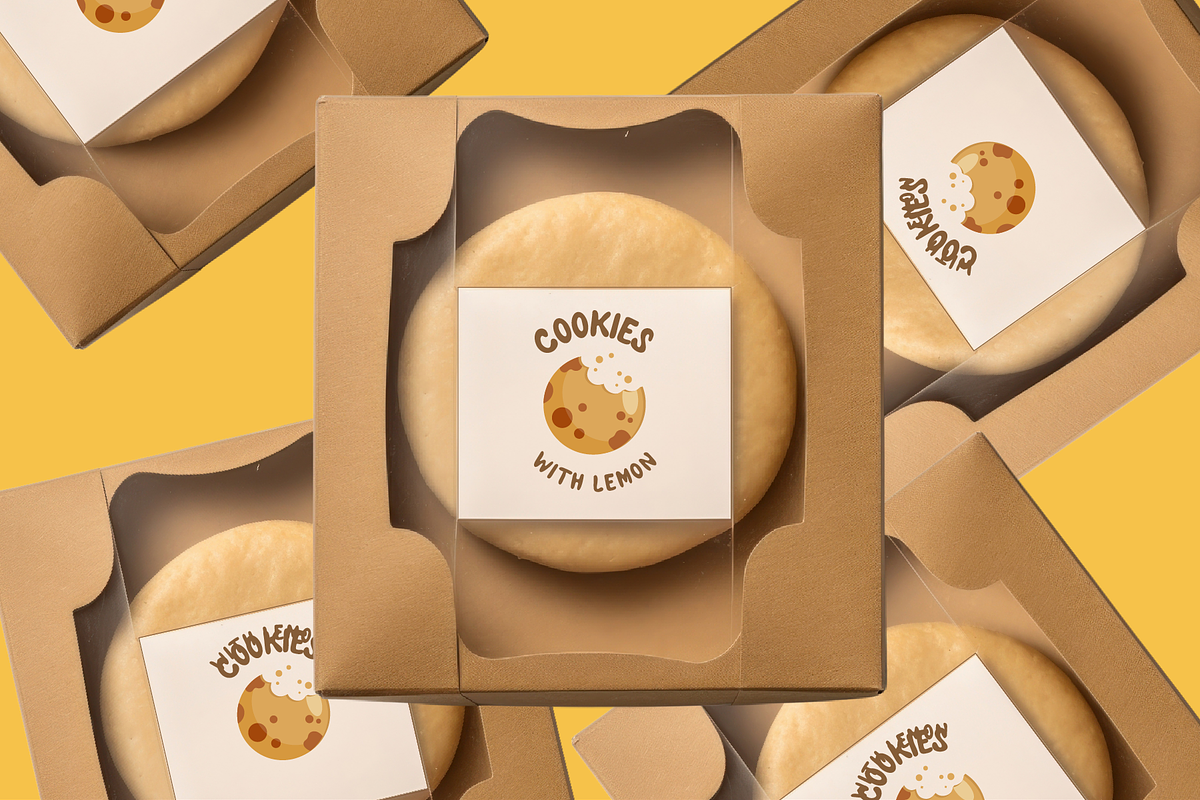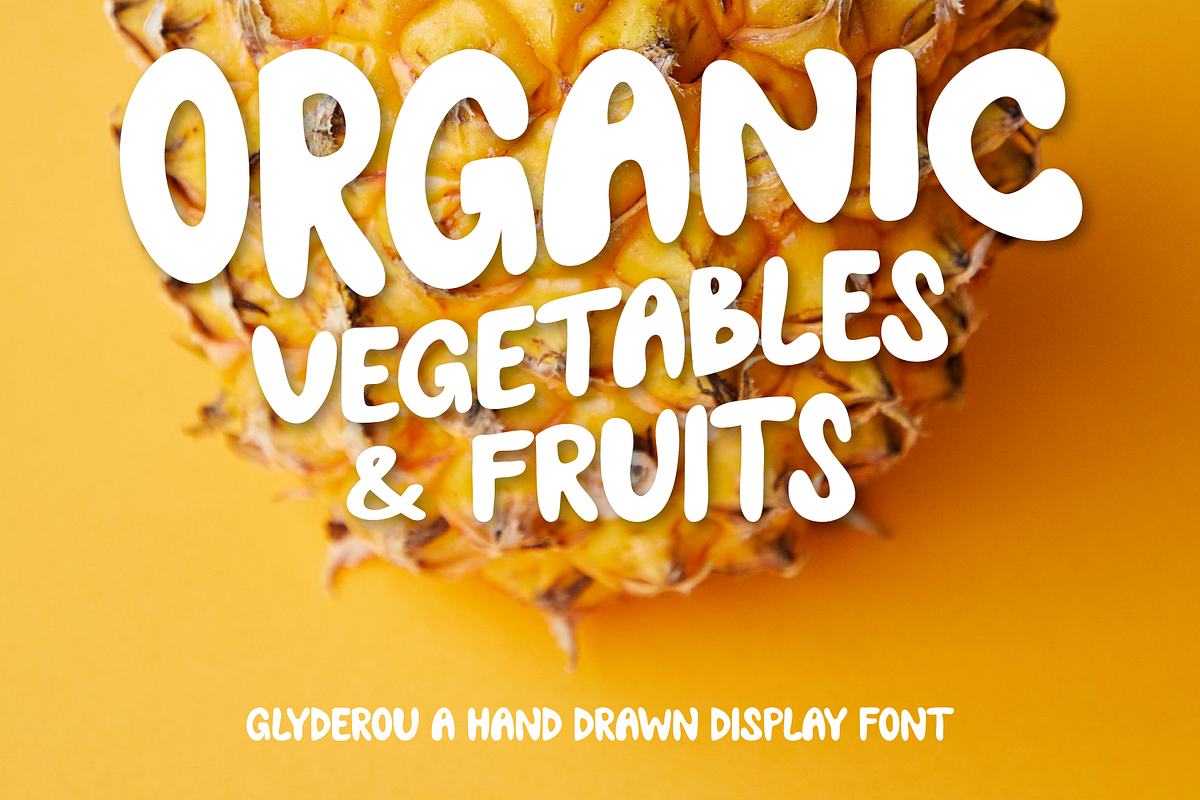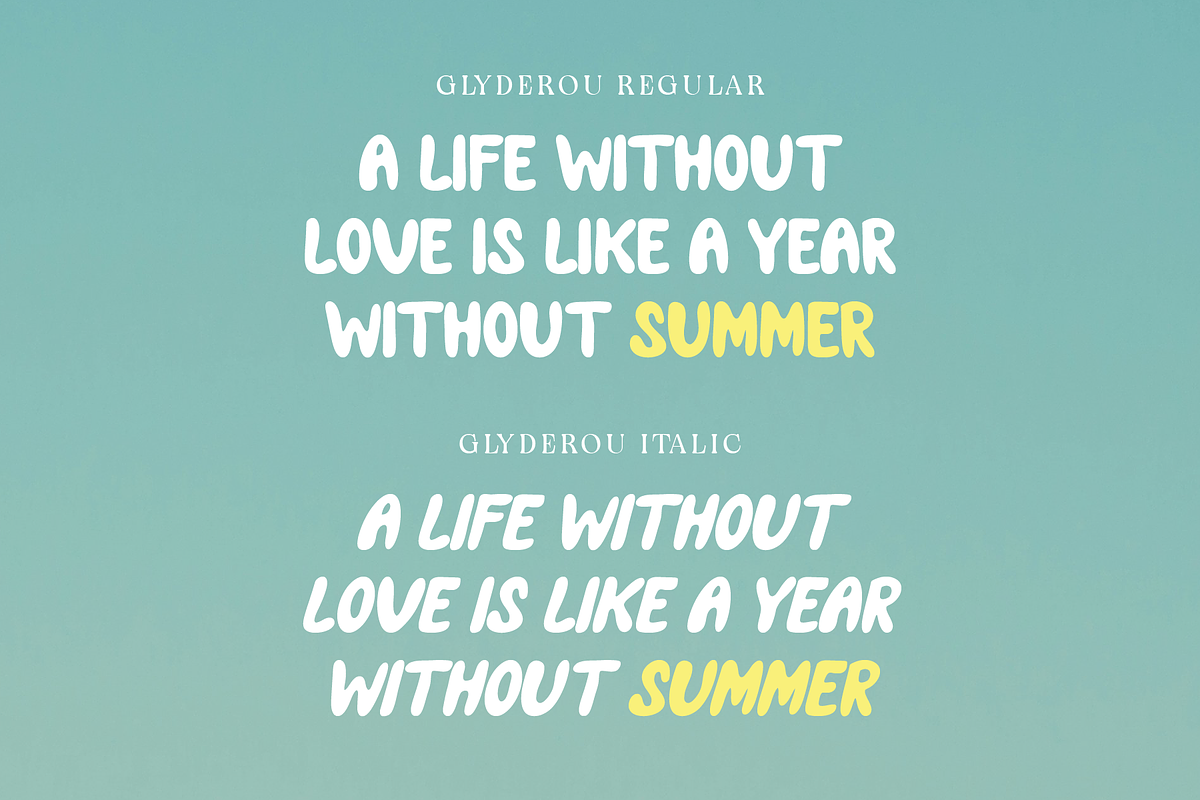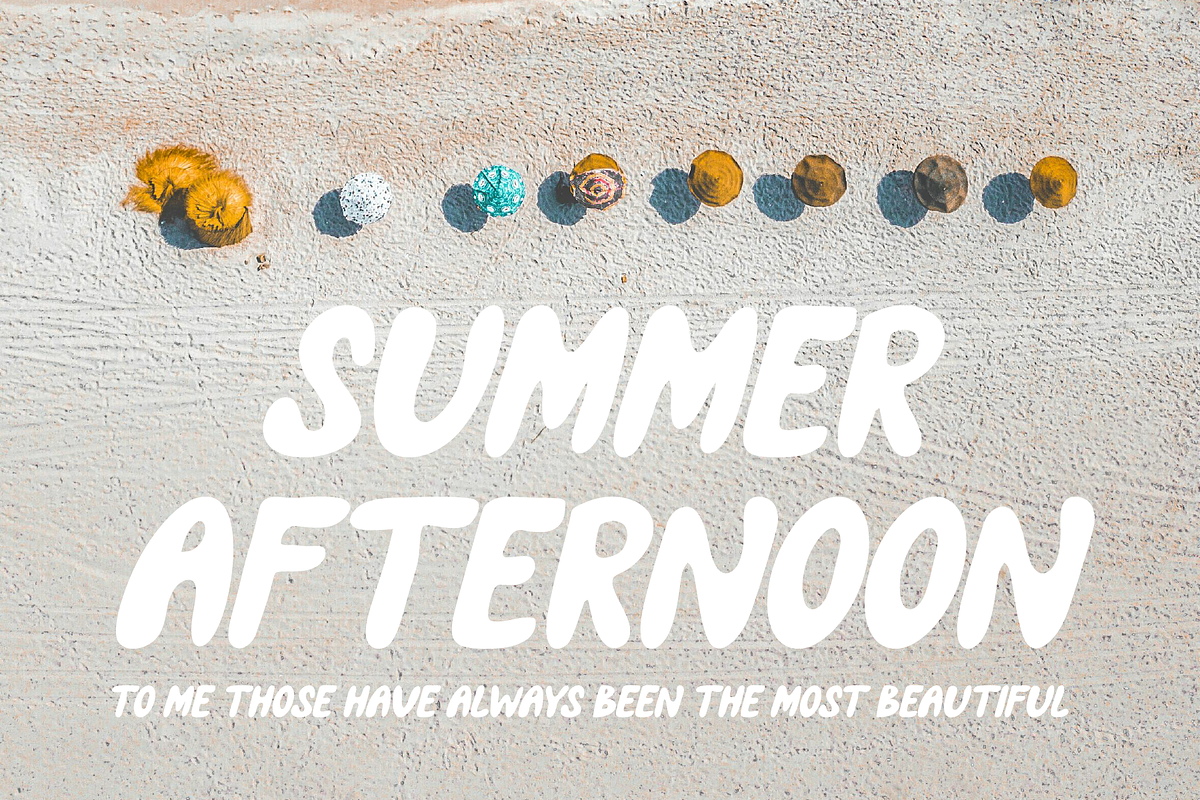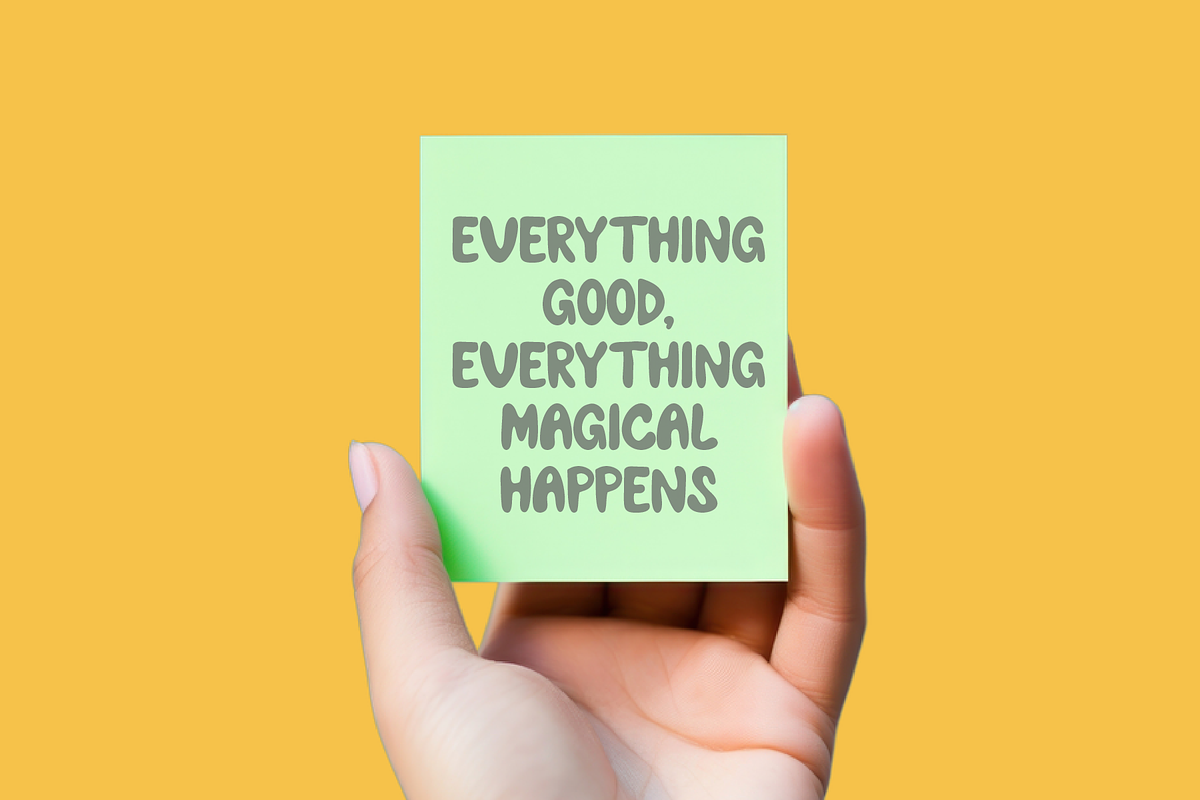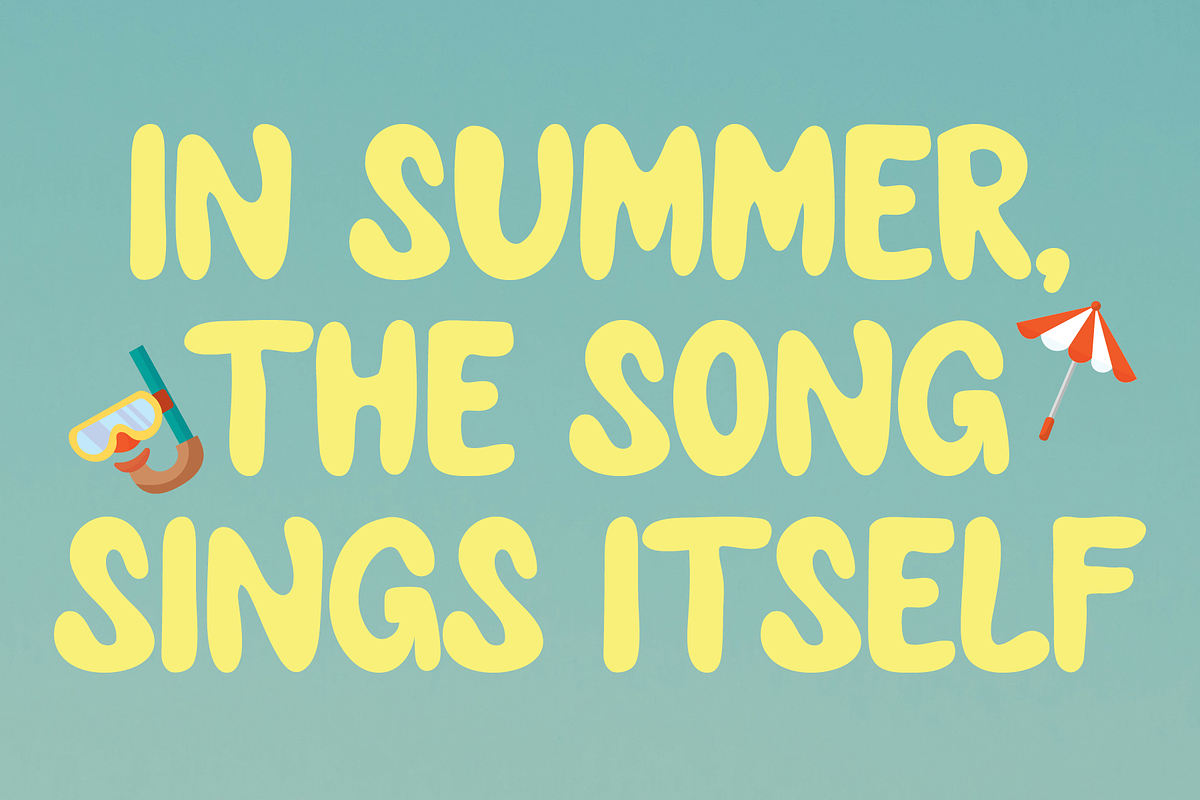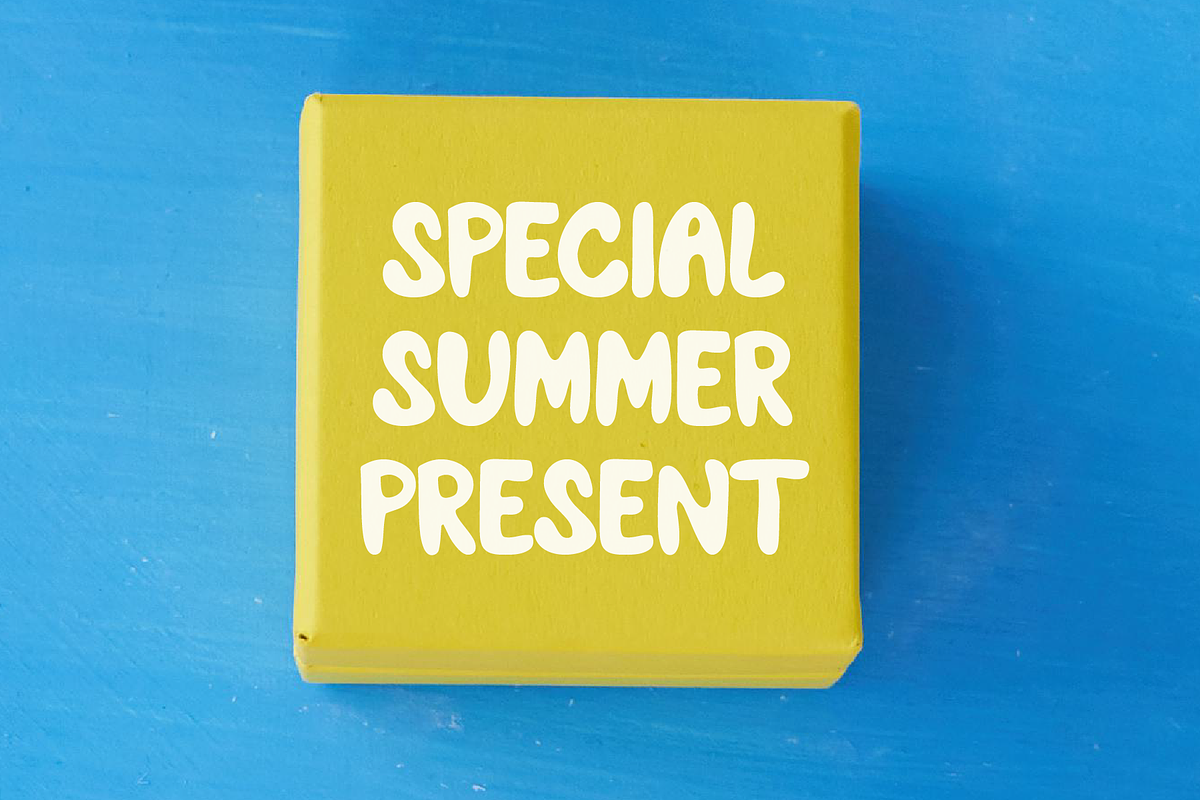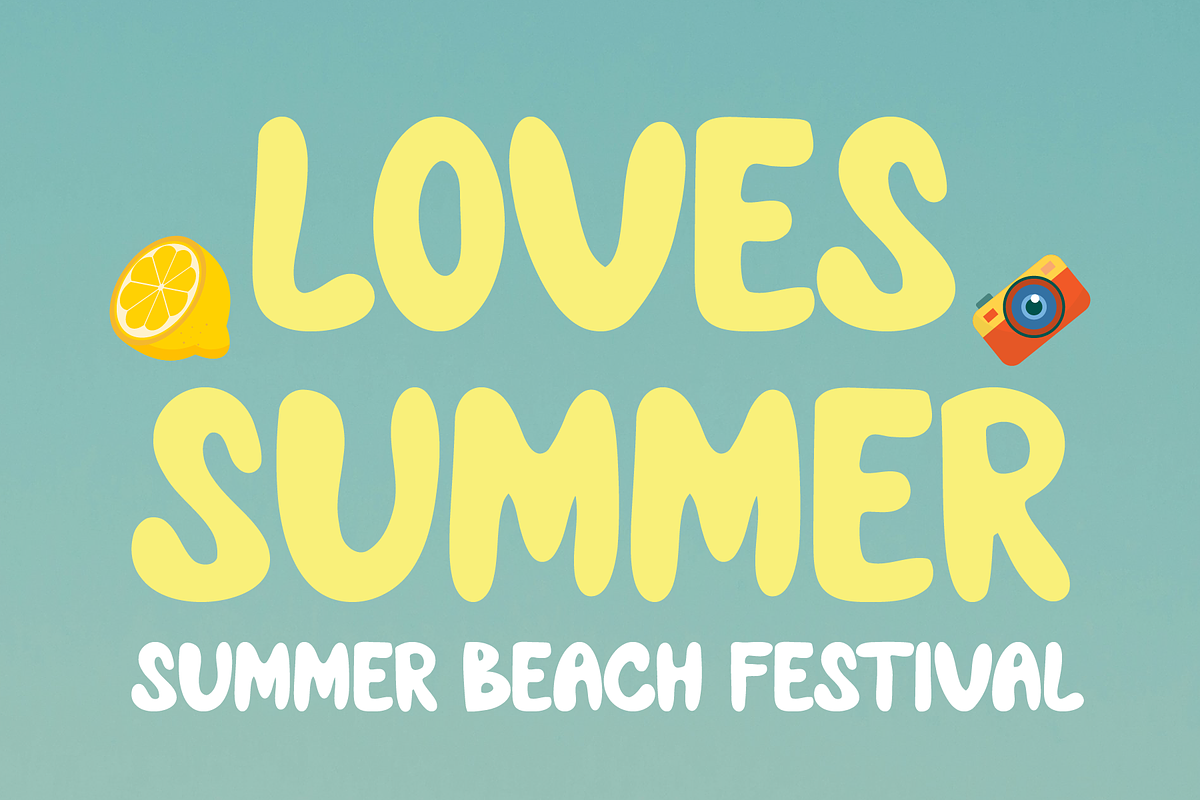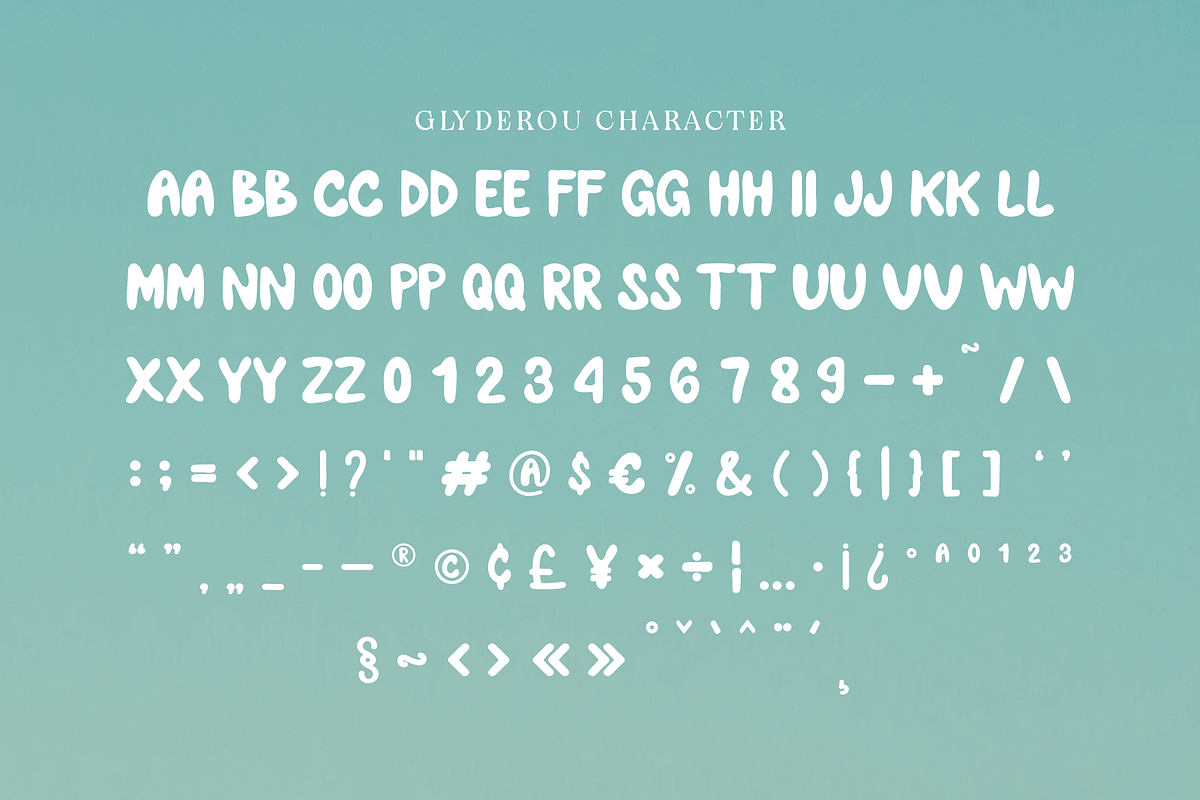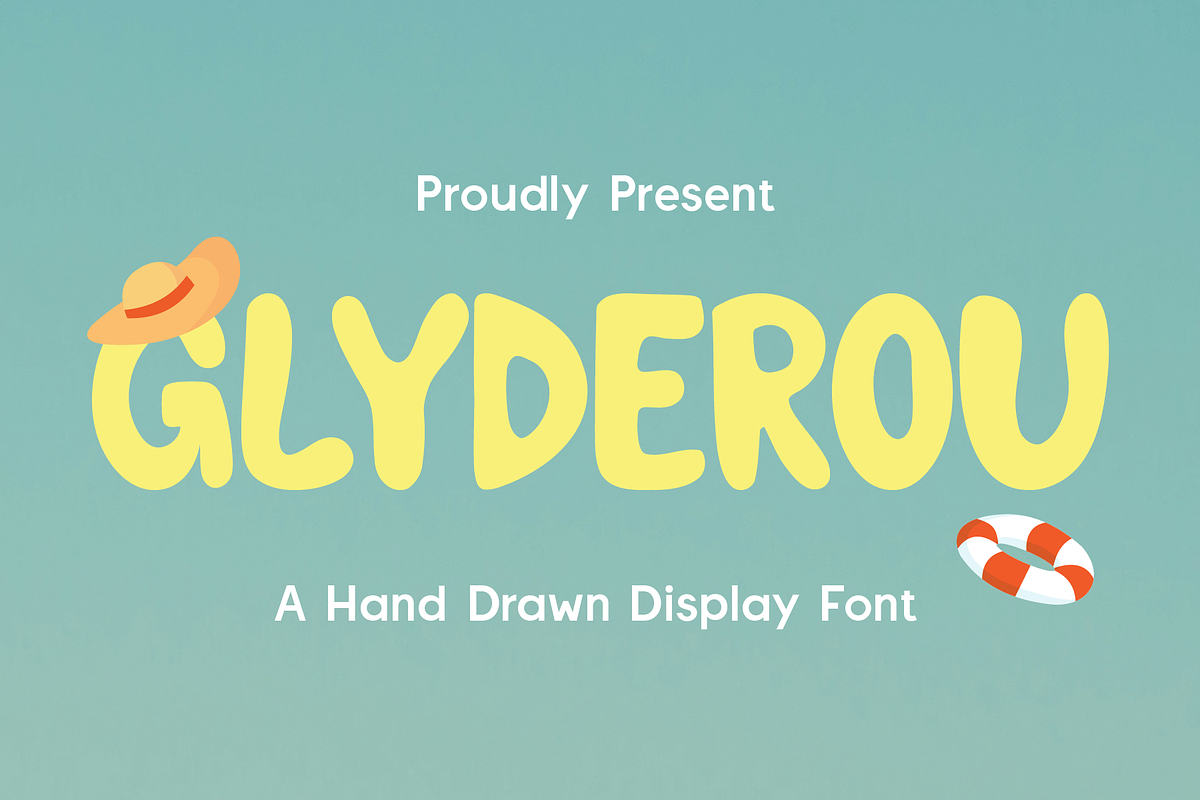
Glyderou - Hand Drawn Display
Glyderou is a hand-drawn display font full of warmth, character, and playful personality. With its rounded curves and slightly irregular strokes, Glyderou brings a cheerful, friendly touch to your design projects. Inspired by children's handwriting and casual doodles, it's ideal for anything that needs a personal, lighthearted look.
Perfect for kids’ books, product packaging, greeting cards, and creative branding, Glyderou maintains legibility while adding a soft, handmade feel. Its organic forms make it suitable for both digital and print applications.
Why You Should Choose Glyderou:
✏️ Hand-drawn style with smooth curves ©️ Display font perfect for headlines and branding 🎈 Fun, whimsical tone 👶🏻 Great for children's content, posters, and product packaging 🔤 Supports standard characters and punctuation